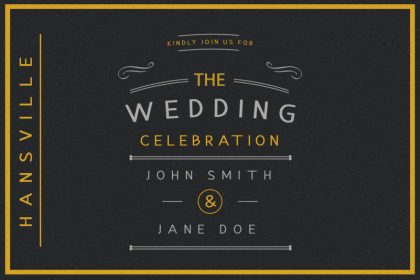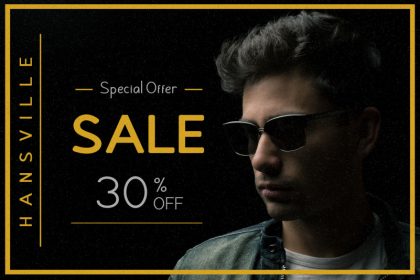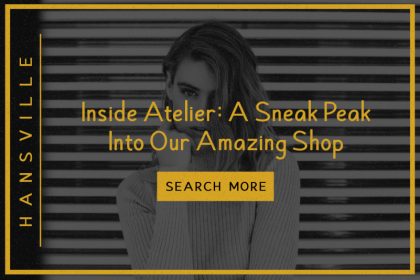
Hansville – Sans Font Family
Hansville – Sans Font Family is a versatile font family. Strong capitals and a smooth, open lowercase are effective in a variety of applications. Hansville works great in branding, logos, headlines, high fashion, web design. The different weights give you a full range to explore a whole host of applications, from a tech startup, local events to sports matches.